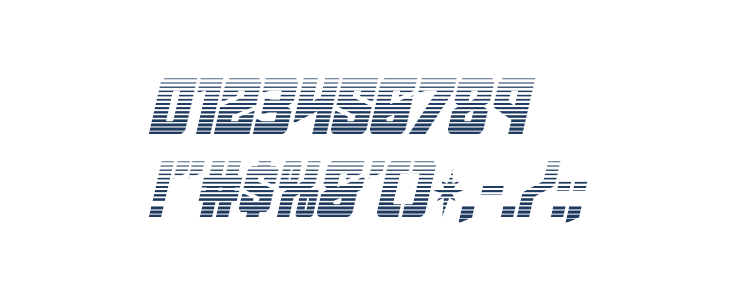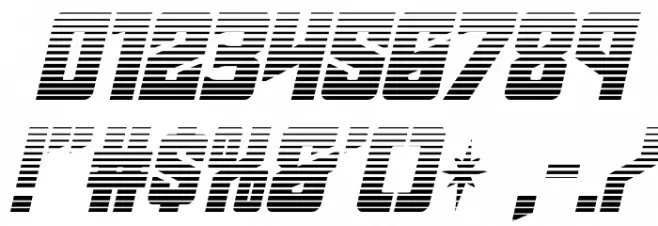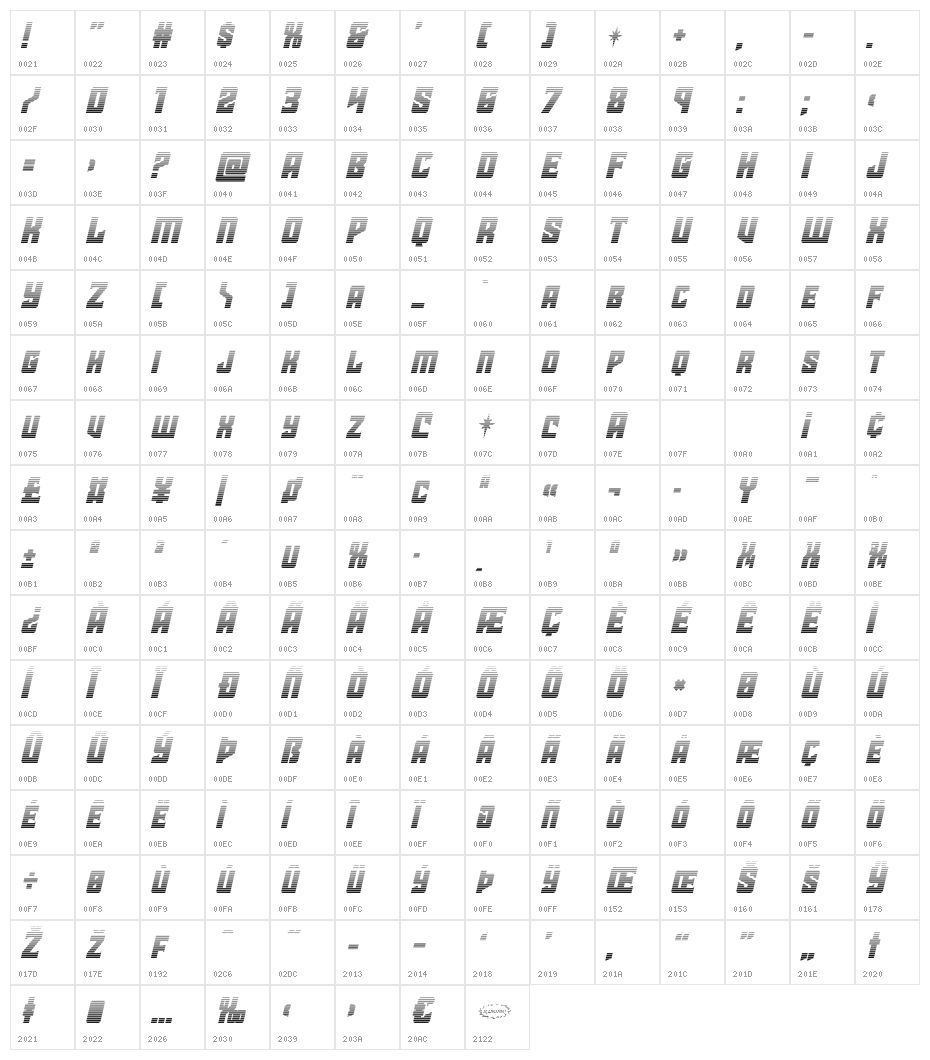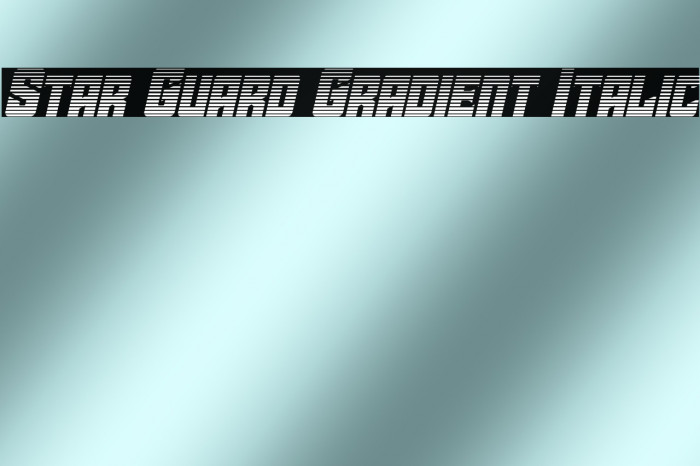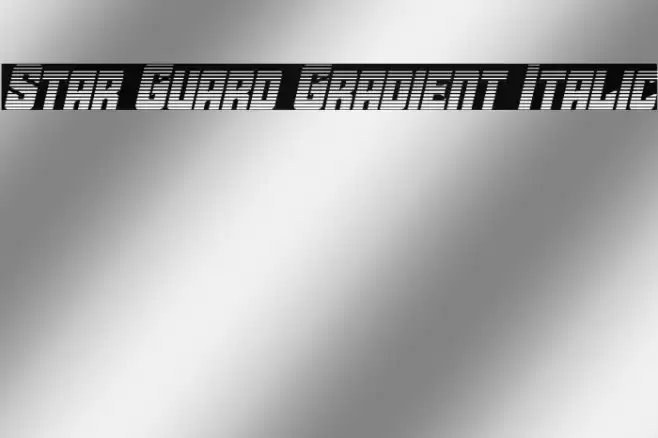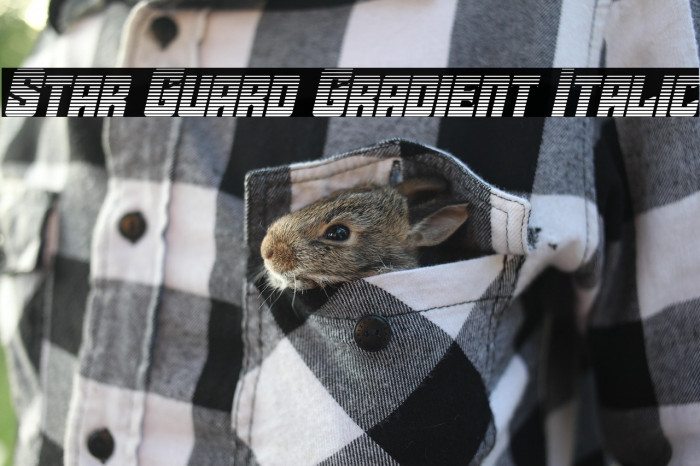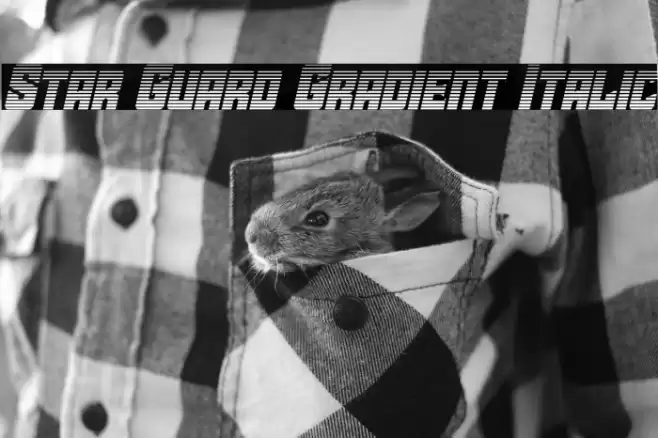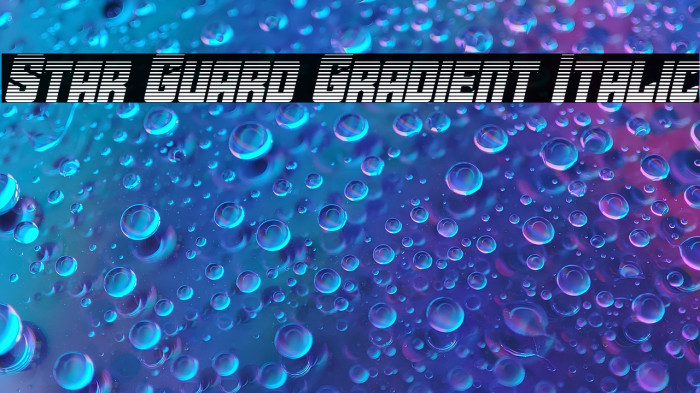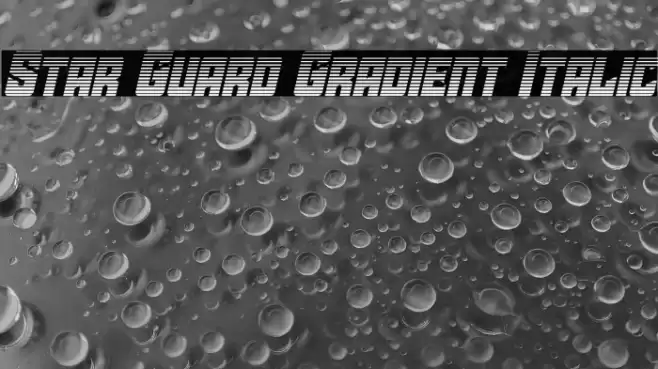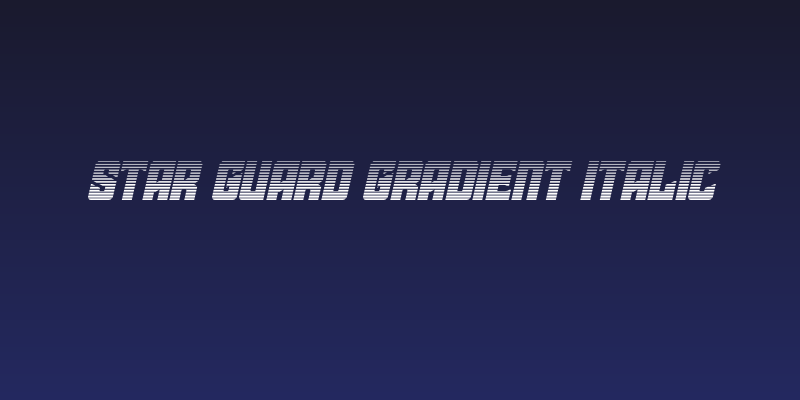
Star Guard Gradient Italic Font
Star Guard Gradient Italic Description
This font features a bold, futuristic design with a distinct gradient effect that gives it a dynamic and energetic appearance. The characters are italicized, adding a sense of motion and speed. Each letter is composed of horizontal lines that create a striped pattern, enhancing the modern and technological feel. The uppercase and lowercase letters maintain a consistent style, with sharp angles and a slightly condensed form. The numerals and special characters follow the same aesthetic, ensuring uniformity across all elements. This font is ideal for projects that require a strong, impactful visual presence.
| Proposed Projects | Ideal for sci-fi themed posters, video game titles, tech branding, and futuristic event flyers. |